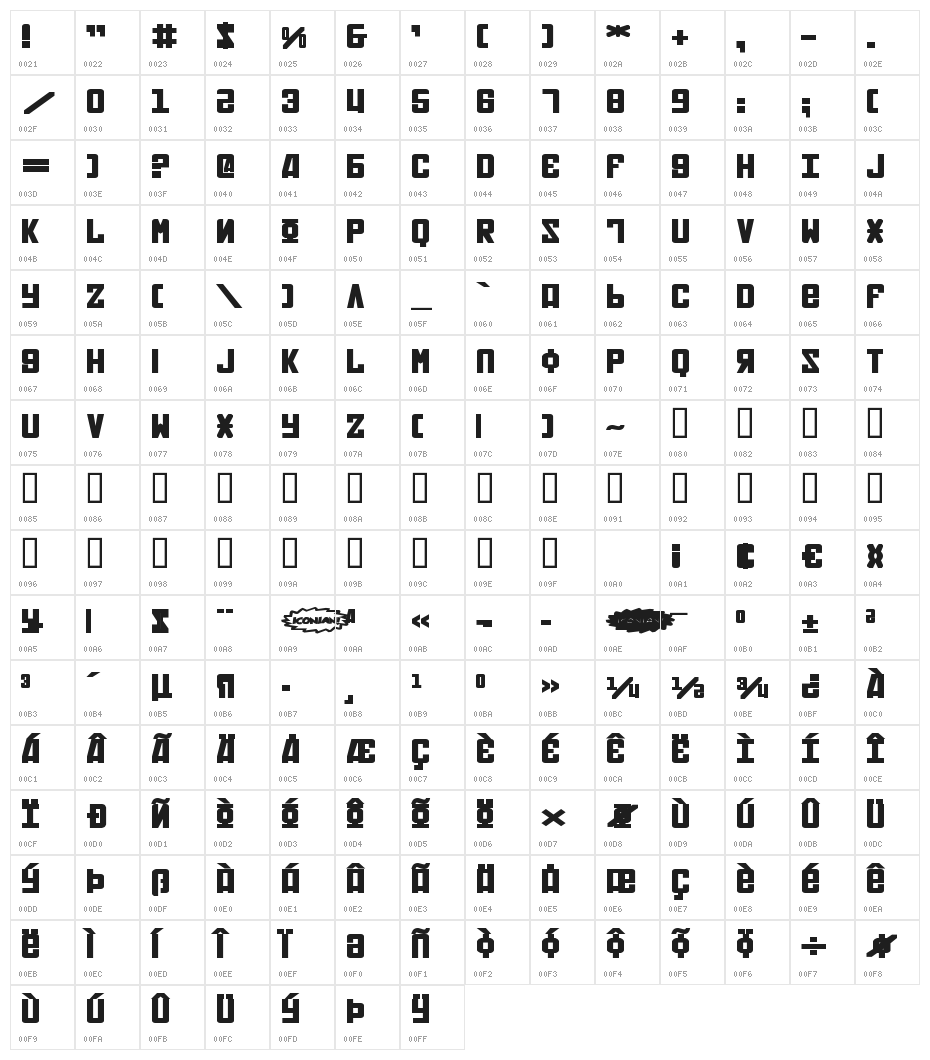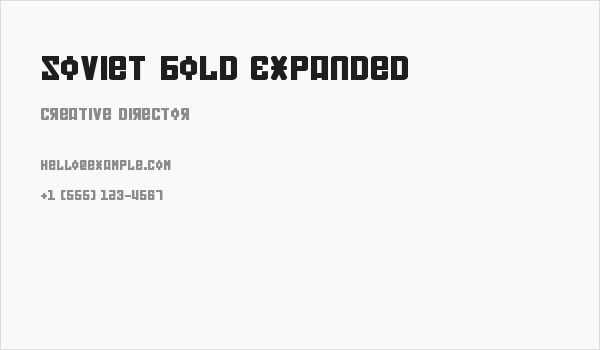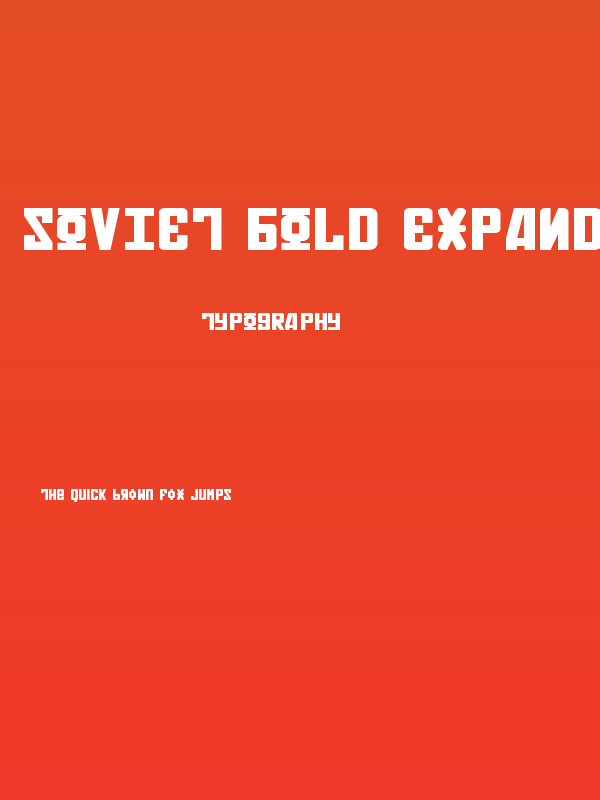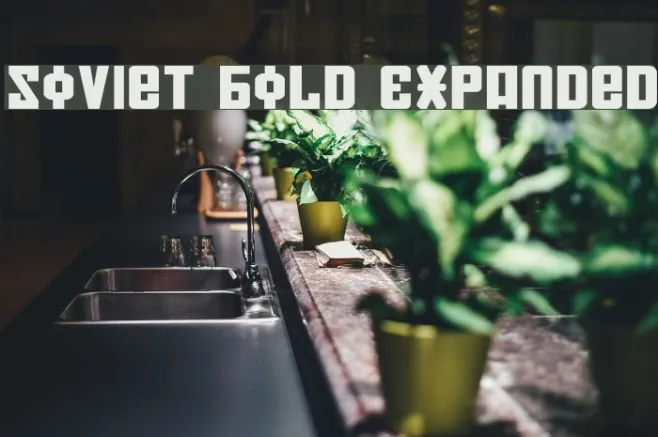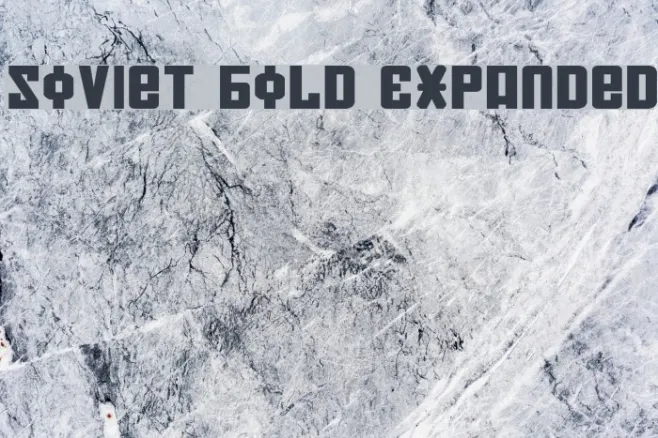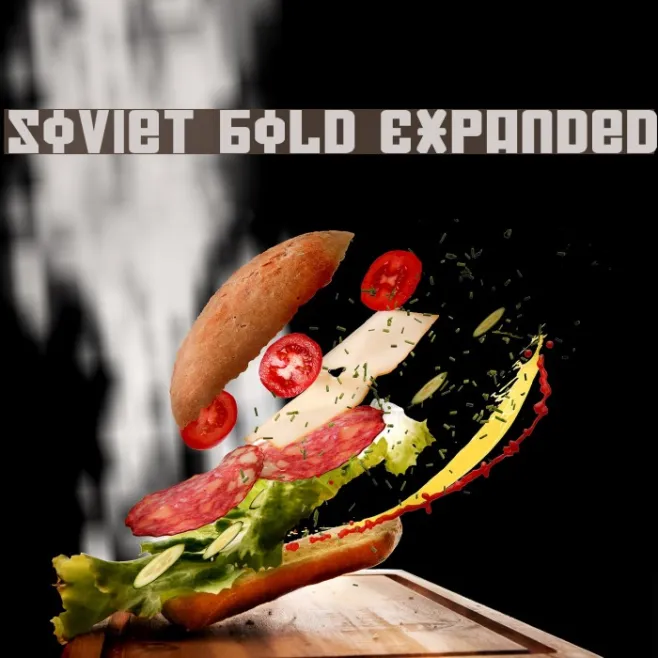
Soviet Bold Expanded Font
Soviet Bold Expanded Description
This font features a bold and expanded style with strong geometric shapes and a distinct Soviet-era influence. The characters are blocky and robust, with a uniform thickness that conveys a sense of strength and authority. The uppercase letters are particularly striking, with angular forms and sharp edges that create a powerful visual impact. The numbers and special characters maintain the same boldness, ensuring consistency across all elements. This font's design is reminiscent of industrial and propaganda styles, making it ideal for projects that require a bold and assertive typeface.
| Proposed Projects | Ideal for posters, branding, and designs that require a strong, authoritative presence. |